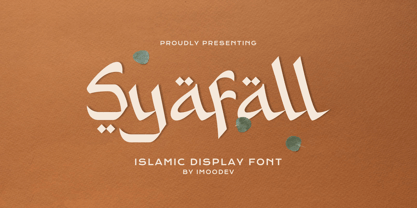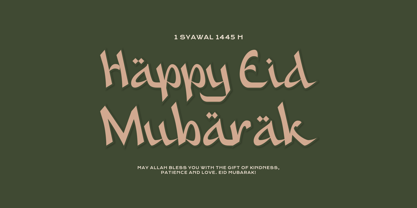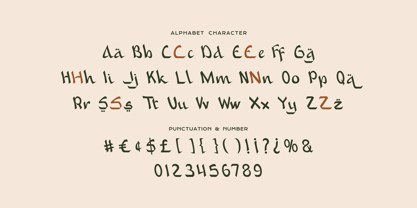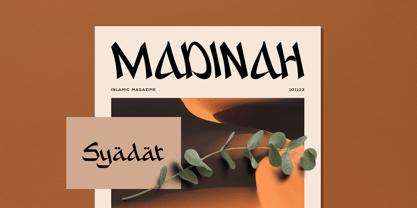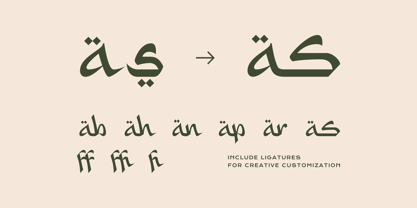
Syafall
by Imoodev
The Syafall Font Family was designed by Aulia Savira Putri and published by Imoodev. Syafall contains 1 styles. More about this family
Syafall is an islamic calligraphy font that harmoniously integrates modern aesthetics with traditional forms. It features a decorative and unique style, combining contemporary typography with subtle calligraphic elements inspired by the rich heritage of Islamic art and design. The font’s glyphs exhibit angular and sleek shapes, characterized by pronounced strokes and diacritical marks (such as umlauts and dots), which underscore its Middle Eastern or Arabic design influence. This font is particularly well-suited for creative endeavors, including branding, packaging, or headlines, aiming to convey a blend of traditional and modern aesthetics. Its natural elegance and nuanced cultural inspiration make it a versatile choice for a wide range of design or artistic projects with an Islamic or cultural theme.
Designers: Aulia Savira Putri
Foundry: Imoodev